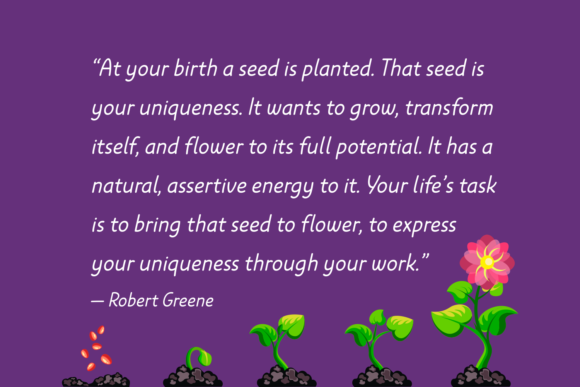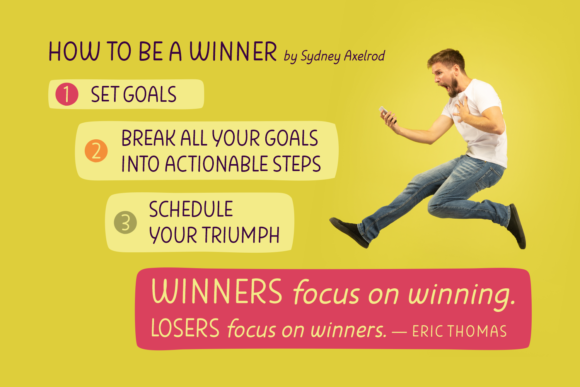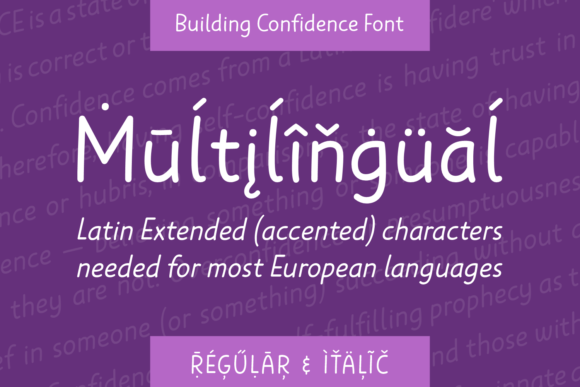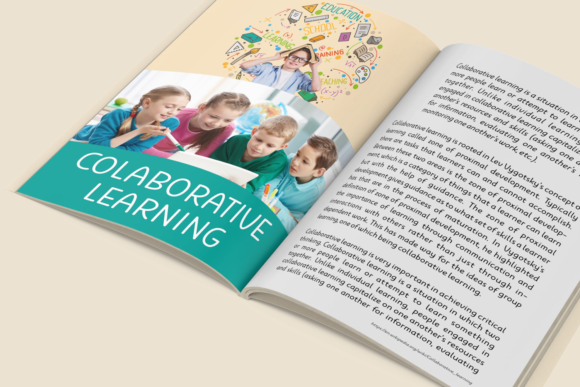
Building Confidence Font: Adding a Joyful Touch to Your Designs
Are you tired of using the same old fonts in your designs? Do you want to add a touch of personality and whimsy to your creative projects? Look no further than the Building Confidence font! This adorable display font is sure to bring a smile to your face and make your designs stand out from the crowd.
What is Building Confidence Font?
Building Confidence is a cute and quirky display font that is perfect for adding a joyful touch to your designs. With its unique and playful lettering style, this font is sure to capture the attention of your audience and leave a lasting impression. Whether you’re a designer, crafty DIY enthusiast, or social media influencer, Building Confidence font is a great addition to your font collection.
Key Features of Building Confidence Font
• Cute and Quirky Design: Building Confidence font features a unique and playful design that is sure to add a touch of personality to your designs.
• Display Font: This font is specifically designed as a display font, making it perfect for headlines, titles, and other attention-grabbing elements in your designs.
• Easy to Read: Despite its playful design, Building Confidence font is easy to read and understand, making it perfect for use in a variety of creative projects.
• Versatile: This font can be used in a wide range of creative projects, from digital designs to print materials, and even handmade crafts.
How to Use Building Confidence Font in Your Designs
Adding Building Confidence font to your designs is easy! Here are a few ways you can use this beautiful display font in your creative projects:
• Social Media Graphics: Use Building Confidence font to create eye-catching social media graphics that will help your posts stand out from the crowd.
• Digital Invitations: Add a playful touch to your digital invitations with Building Confidence font, perfect for parties, events, and other celebrations.
• Print Materials: Use Building Confidence font in your print materials, such as brochures, flyers, and posters, to add a touch of personality and whimsy.
• Handmade Crafts: Add a personal touch to your handmade crafts, such as cards, gift tags, and scrapbook pages, with Building Confidence font.
Benefits of Using Building Confidence Font
Using Building Confidence font in your designs can have a number of benefits, including:
• Increased Engagement: The playful and attention-grabbing design of Building Confidence font can help increase engagement with your audience.
• Improved Brand Recognition: By using a unique and recognizable font like Building Confidence, you can help improve brand recognition and build a strong visual identity.
• Enhanced Creativity: Building Confidence font can help inspire creativity and add a fresh perspective to your designs.
In conclusion, Building Confidence font is a beautiful and versatile display font that can add a joyful touch to your designs. With its unique and playful design, this font is perfect for designers, crafty DIY enthusiasts, and social media influencers looking to add a touch of personality to their creative projects. So why not give Building Confidence font a try and see how it can help take your designs to the next level?